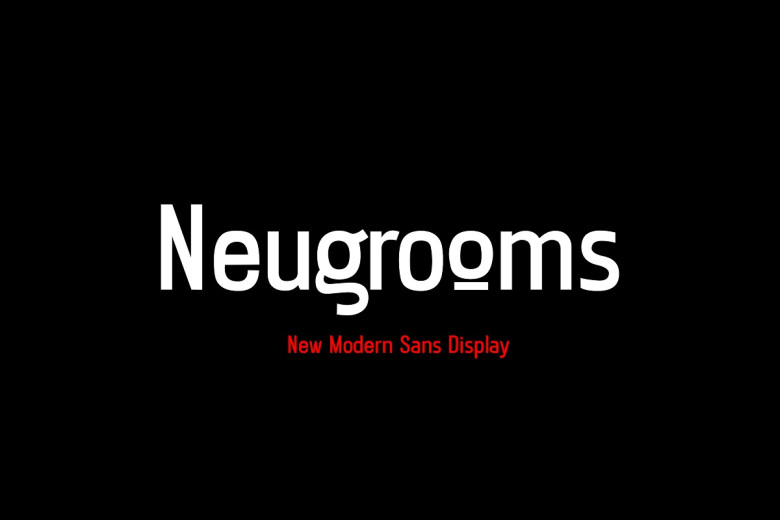
Introduce “Neugrooms”, a modern sans serif display typeface with a contemporary style. Designed for versatility, “Neugrooms” font can be used for various projects like headlines, taglines and text for logo designs as well as headlines or taglines in emails or any other creative writing projects.
“Neugrooms,” with its sleek clean lines and sophisticated elements is ideal for use when looking for an effective typographic solution – make your designs pop out from the competition with “Neugrooms’ distinctive and flexible style that brings modernity with timeless elegance together in one great font!
Neugrooms Sans Serif Font